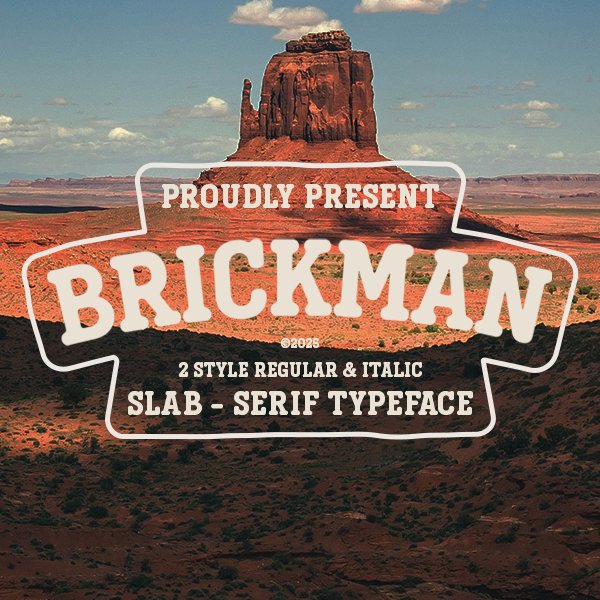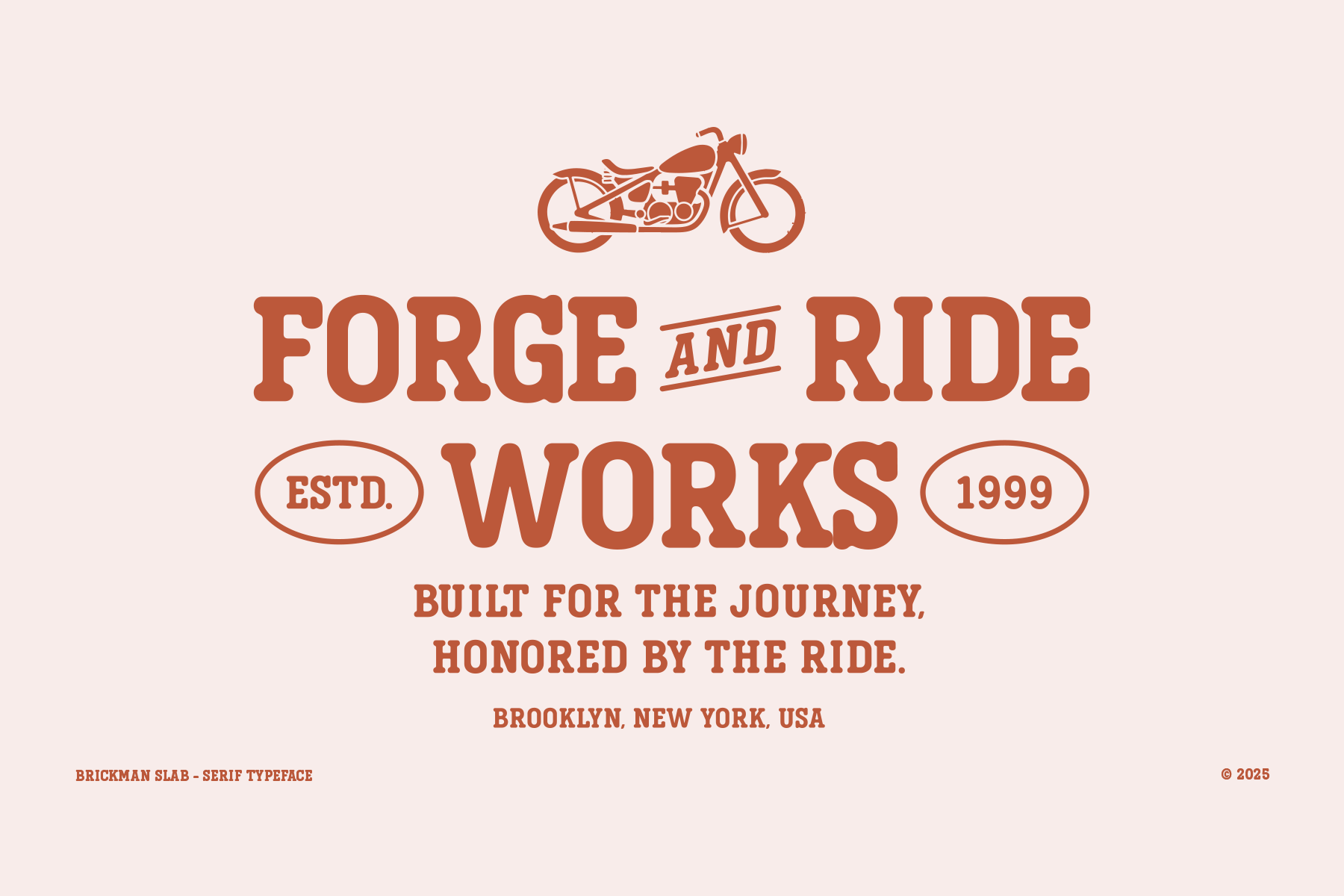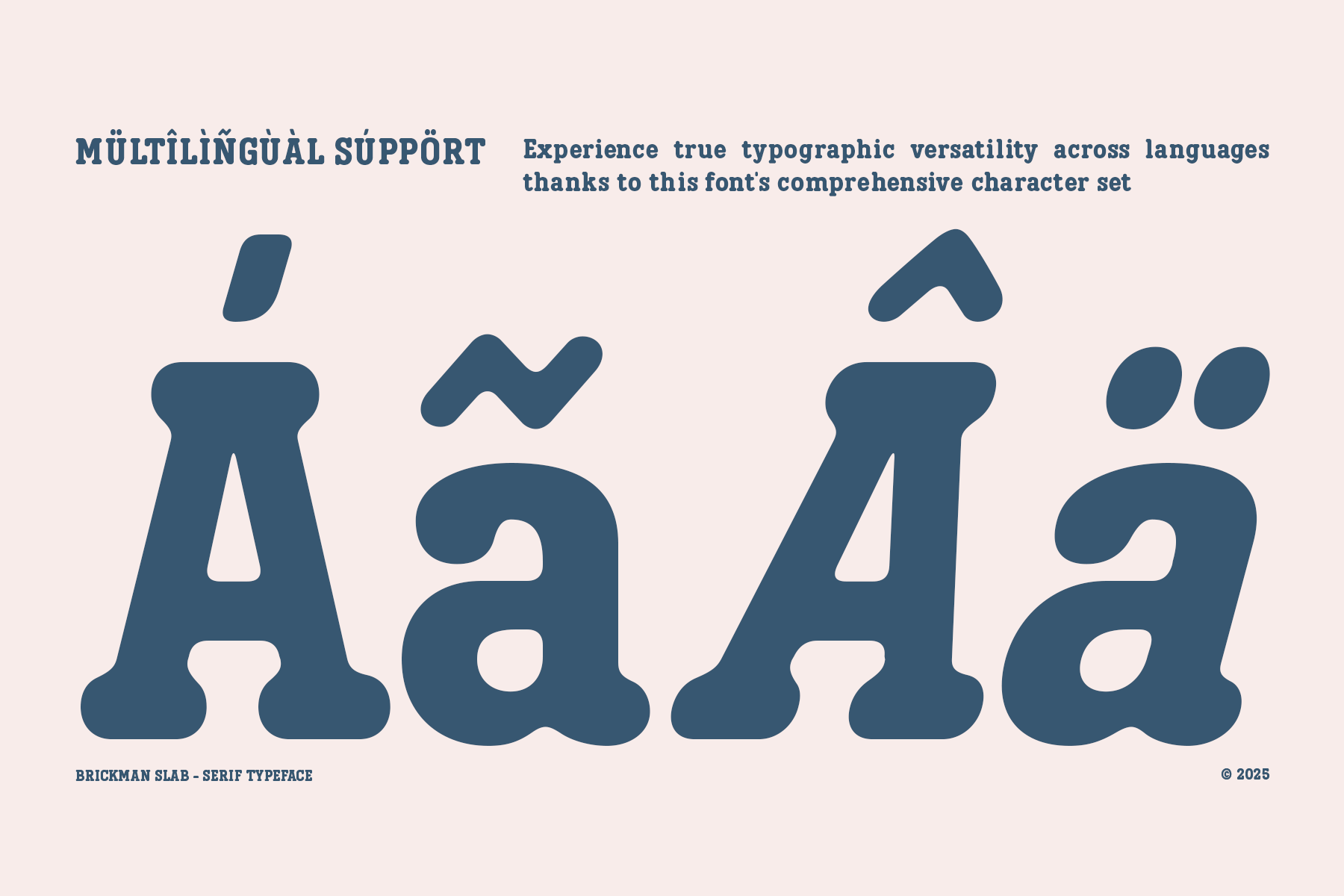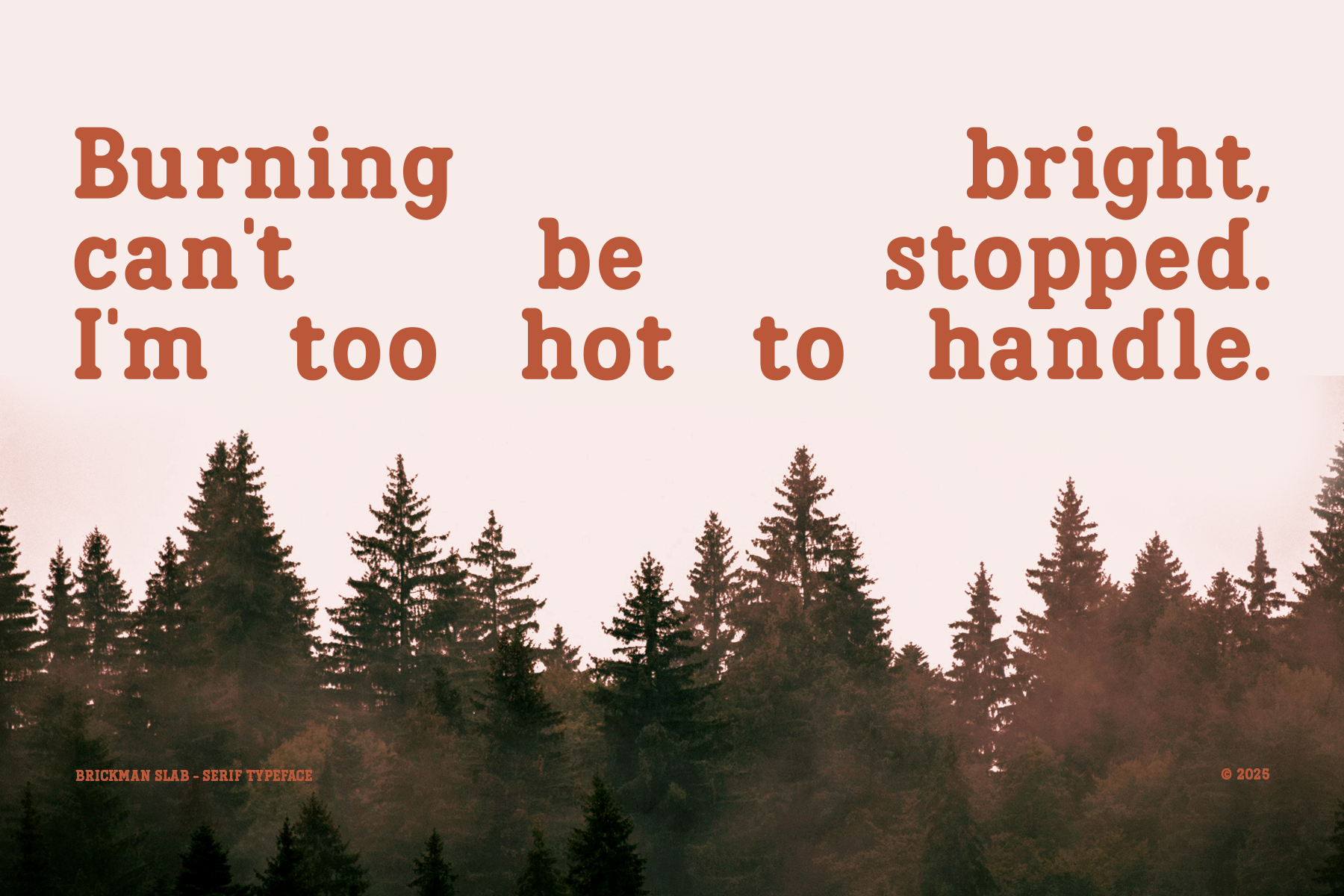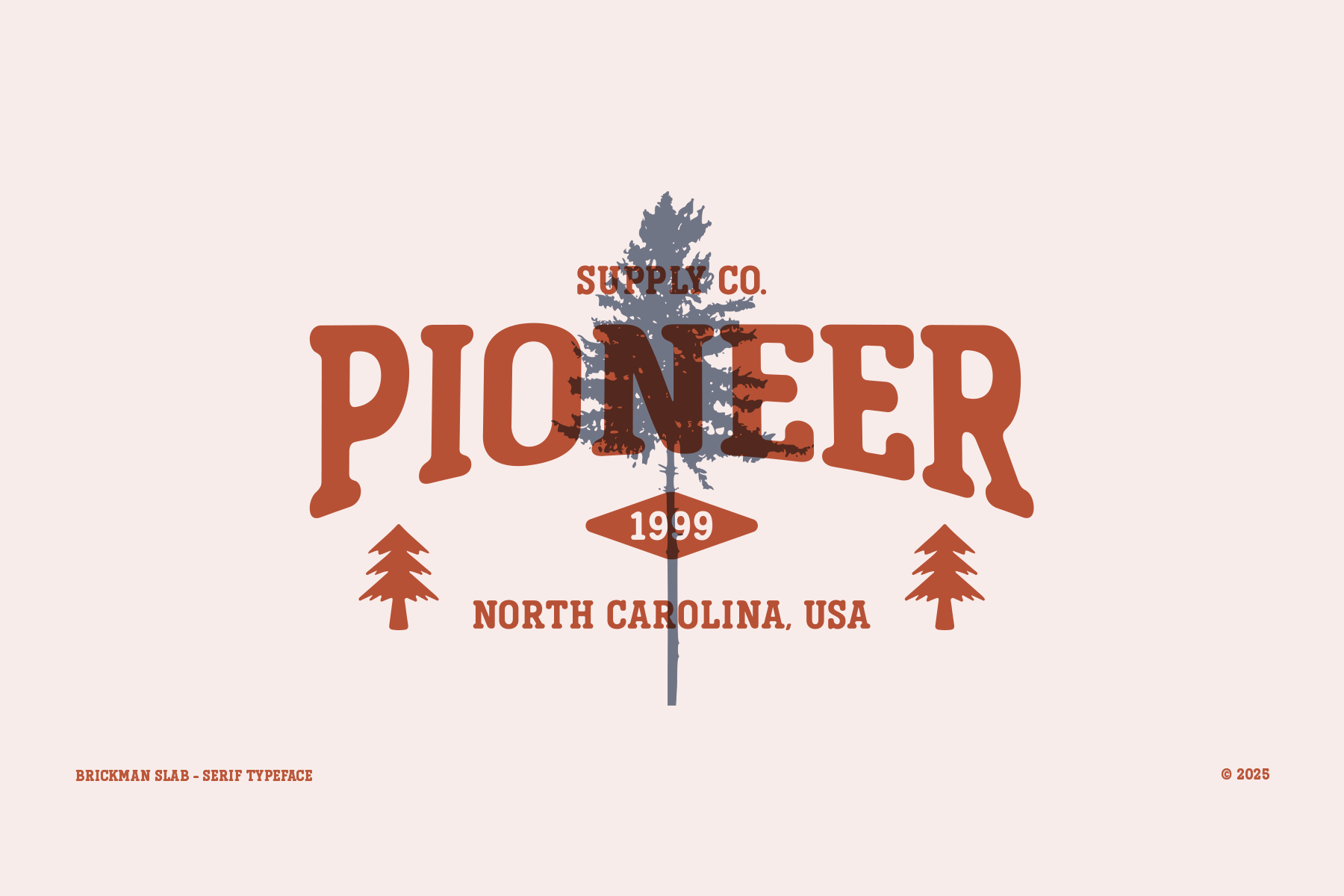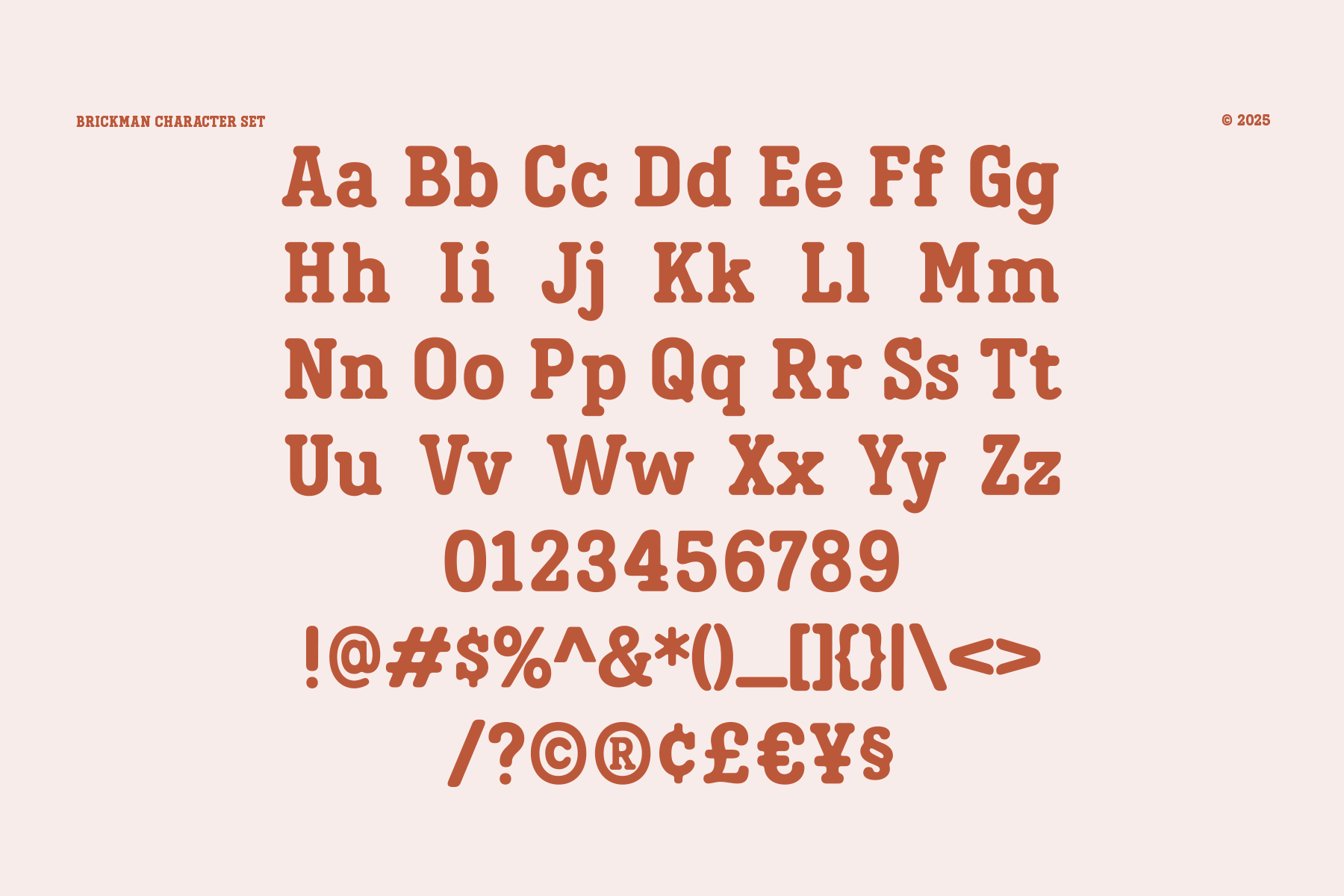
Brickman – Bold Slab Serif Typeface
Indotype Foundry
Brickman is a bold slab serif display typeface that radiates strength, confidence, and timeless vintage charm. With its sturdy letterforms, solid proportions, and subtly rounded terminals that add a friendly touch, Brickman blends classic heritage with a fresh contemporary feel. Inspired by old Wild West advertisements, vintage storefront signage, and circus posters, this font brings an authentic warmth and nostalgic personality to any project. Brickman comes in 2 styles: Regular and Italic, offering versatile design options for strong headlines as well as more expressive typography. The heavy slab serifs make it stand out both in print and on screen, while the italic style adds an appealing visual rhythm and character. Packed with a full set of glyphs — including uppercase, lowercase, numerals, punctuation, and multilingual support — Brickman is perfect for branding, logos, product packaging, country music posters, vintage signage, beverage labels, and editorial designs that call for a bold retro statement. This is the go-to typeface for designers seeking a look that’s both strong and full of character.
Brickman is a bold slab serif display typeface featuring sturdy letterforms and subtly rounded terminals, available in Regular and Italic styles. It includes a full set of glyphs, including uppercase, lowercase, numerals, punctuation, and multilingual support, making it suitable for a variety of design applications.